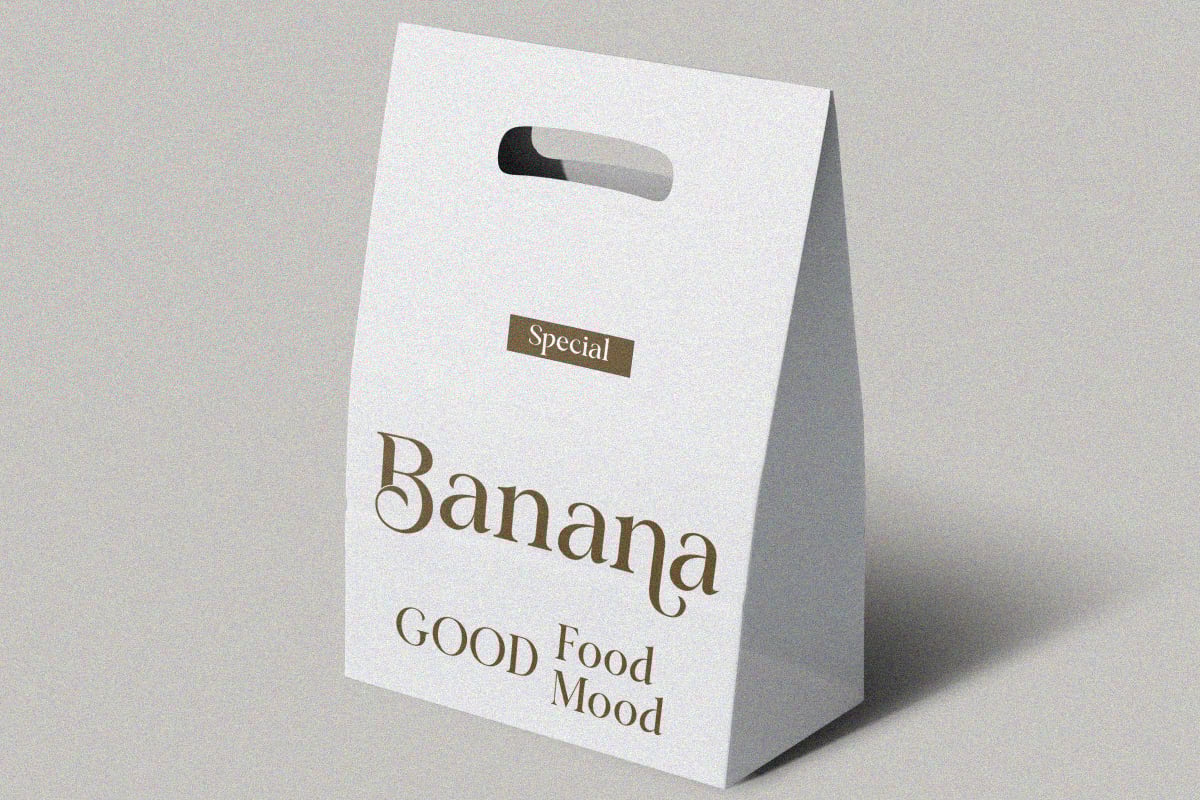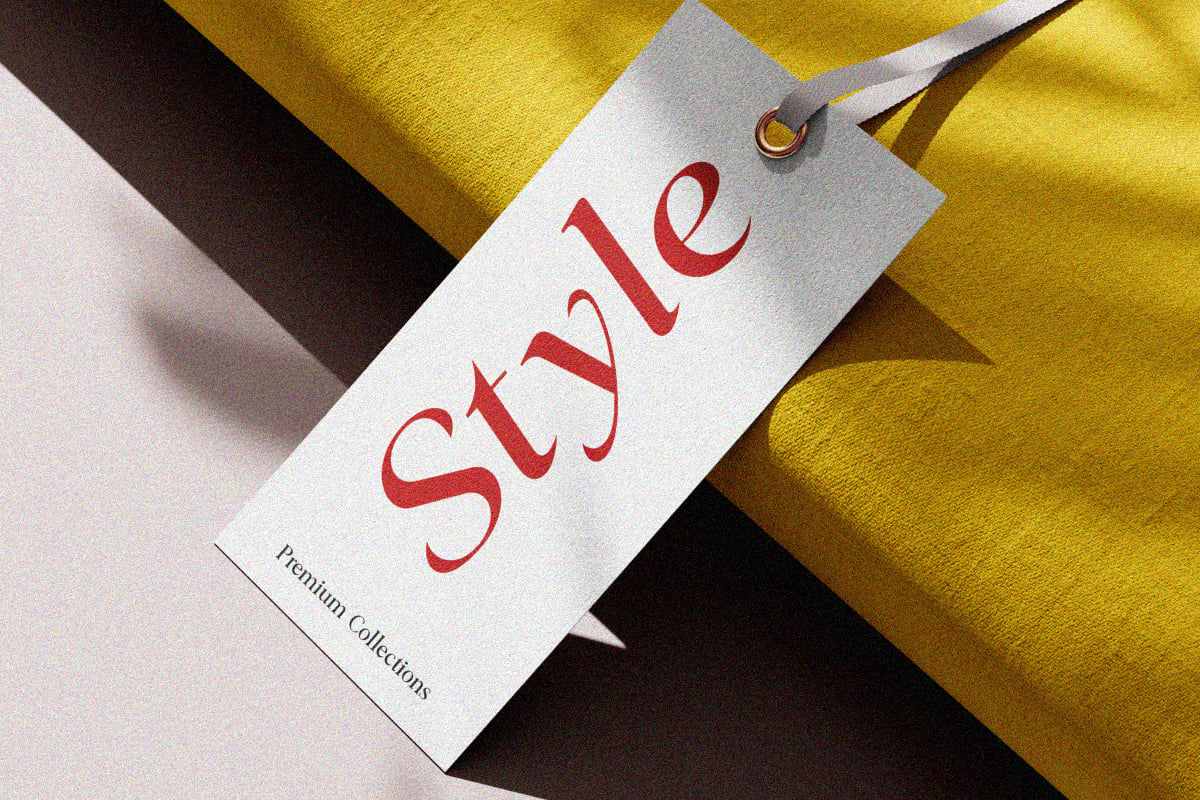
Classical Premiera Font
Classical Premiera comes as a pair: an upright serif and an italic with a lot of swing. In the specimen the italic word Style runs diagonally across a swing tag, and the upright Banana on a paper bag shows off a curly a and soft, ball-ended terminals. The two styles mix well in one line.
Best uses for Classical Premiera
• Food and bakery packaging
• Clothing swing tags and labels
• Wedding invitations and menus
• Book covers and chapter titles
• Boutique and florist logos
Pair Classical Premiera with a light sans. Montserrat in small caps suits labels such as Premium Collections. Nunito Sans is a friendly choice for body copy. For a second serif in long text, EB Garamond sits well beside it.
What free font is similar to Classical Premiera?
Gloock and DM Serif Display are open-licence serifs with similar soft contrast. For an italic with movement, look at Playfair Display Italic.